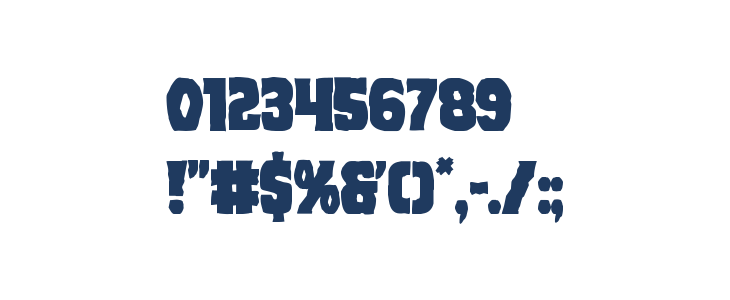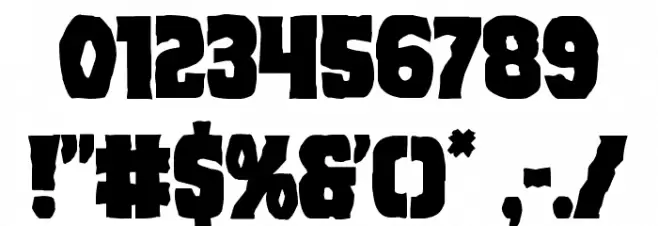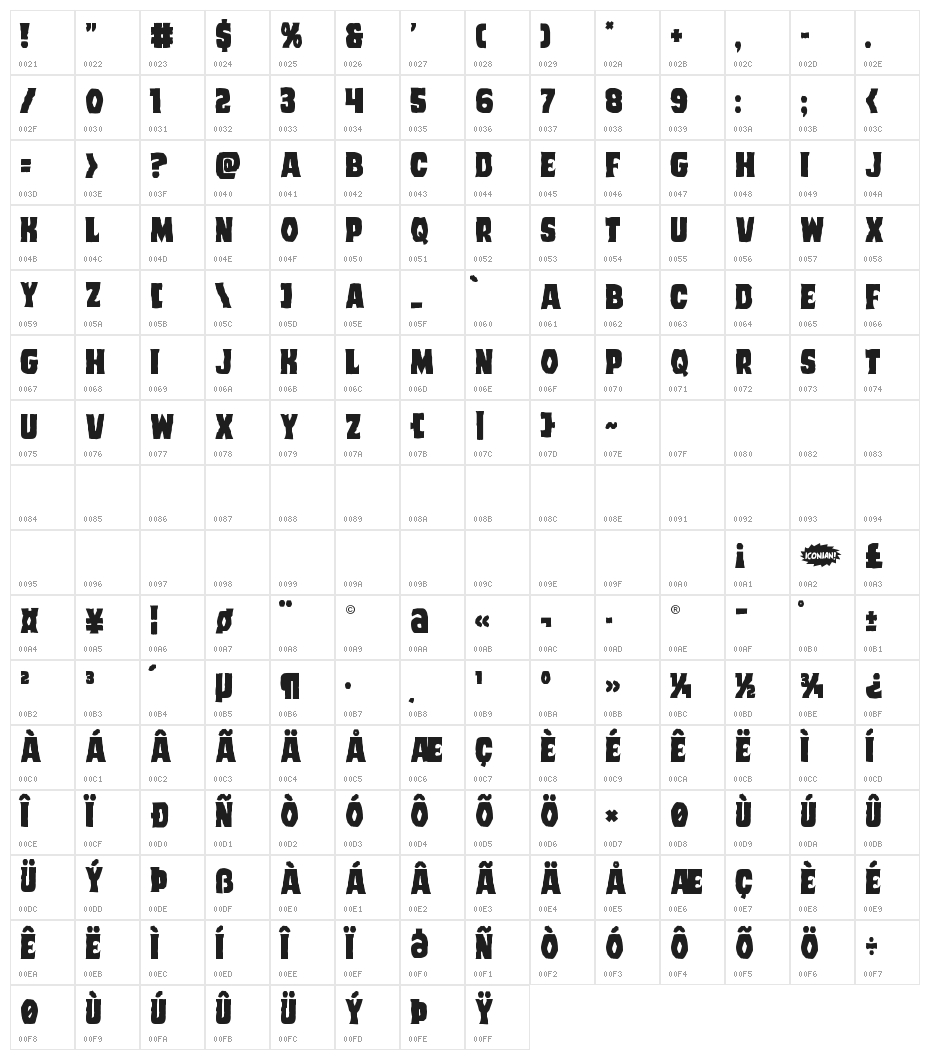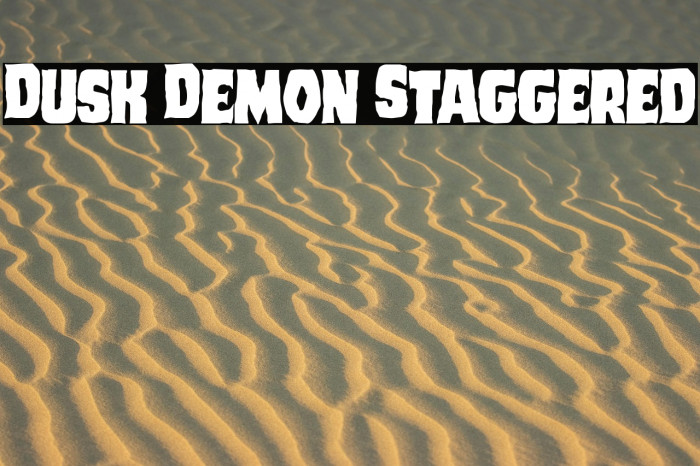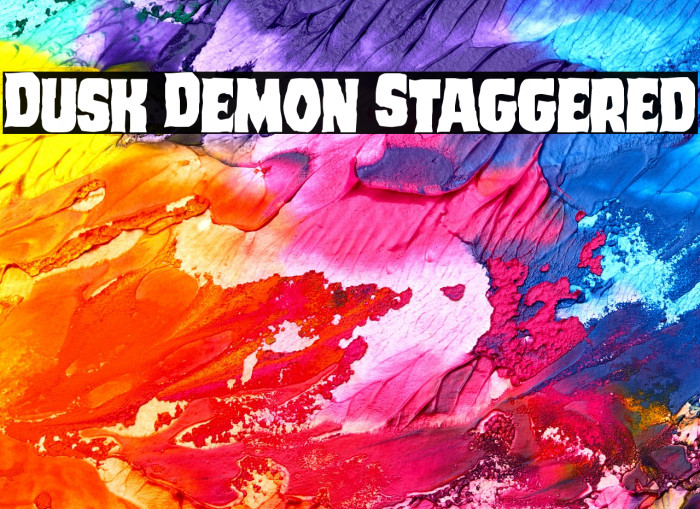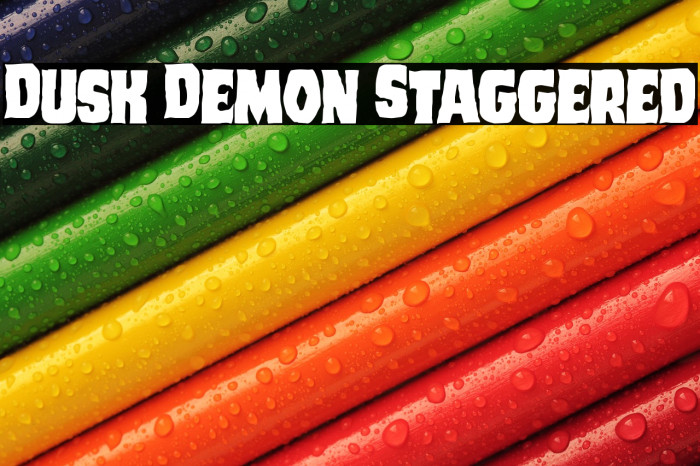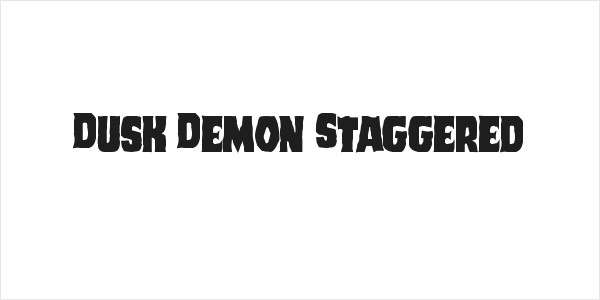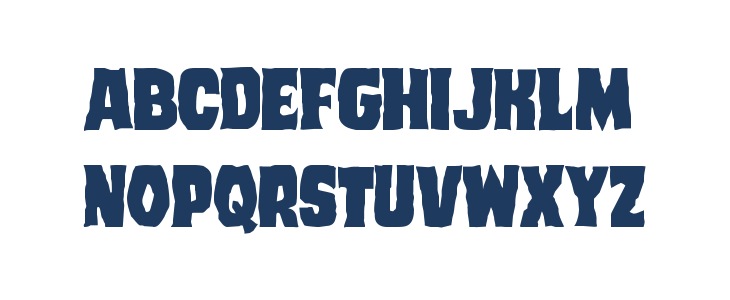
Dusk Demon Staggered Font
Dusk Demon Staggered Description
This font features a bold and rugged design with a distinctly irregular and jagged appearance. The characters are heavily stylized, giving off a sense of chaos and intensity. The strokes are thick and uneven, creating a dynamic and energetic feel. The overall look is reminiscent of horror or thriller themes, making it perfect for projects that require a dramatic and eye-catching typeface. The uppercase and lowercase letters maintain a consistent style, while the numerals and special characters follow suit with the same bold and staggered design.
Proposed ProjectsIdeal for horror movie posters, Halloween event flyers, edgy branding, and video game titles.